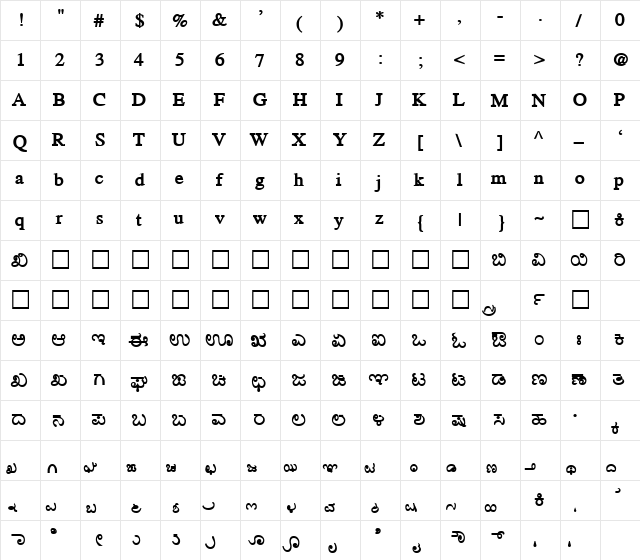
AkrutiOfficePadmini Bold
Design Context for AkrutiOfficePadmini Typeface
AkrutiOfficePadmini is a composed and adaptable typeface that performs quietly and consistently across a wide range of design contexts. The heavy weight commands attention and anchors typographic hierarchies.